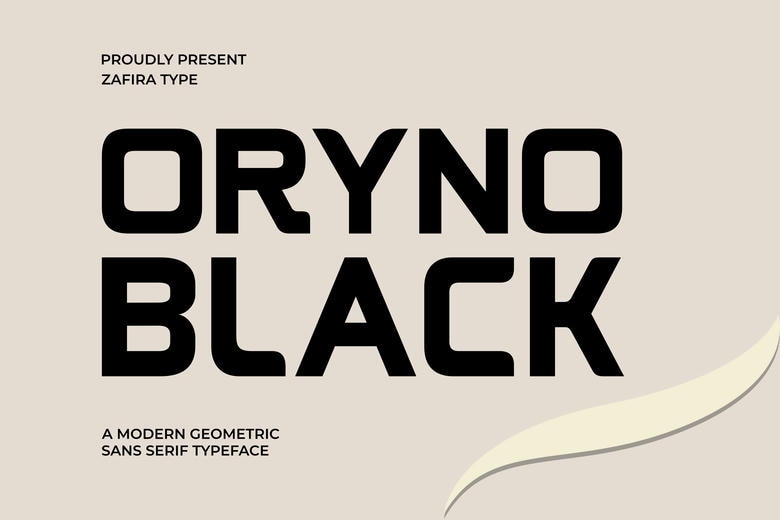
Oryno Black Font
Oryno Black is a modern Sans-Serif typeface that brings clear, easy-to-read text to your designs. With balanced shapes and crisp lines, it offers a fresh look that works well for many creative projects.
Oryno Black combines style and practicality, making it a great choice for branding, print and digital media, user interfaces, presentations, and packaging.
Its flexible and readable design will help your work stand out in any setting. Try Oryno Black for a modern touch and new creative options.
Oryno Black Sans Serif Font